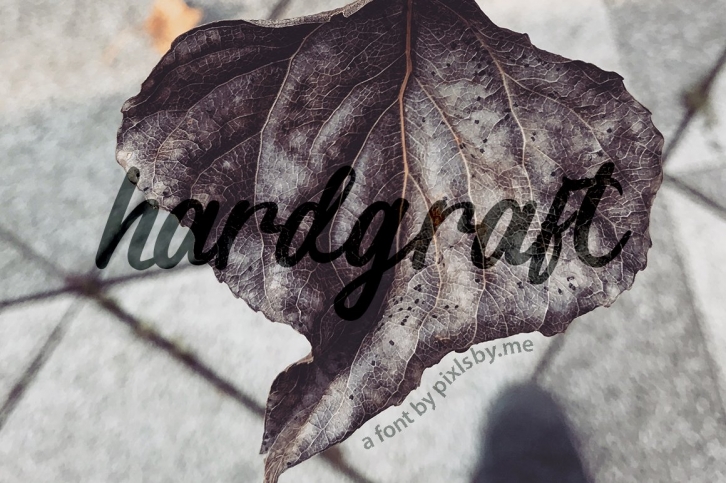
Introducing hardgraft - the first handcrafted font by pixlsby.me
hardgraft comes with carefully made alternate sets of smooth uppercase letters & lowercase letters. All numeral characters and marks are also included.
Build to be used for your company, logos, websites, blog, apps, names, advertisements, personal approaches etc.